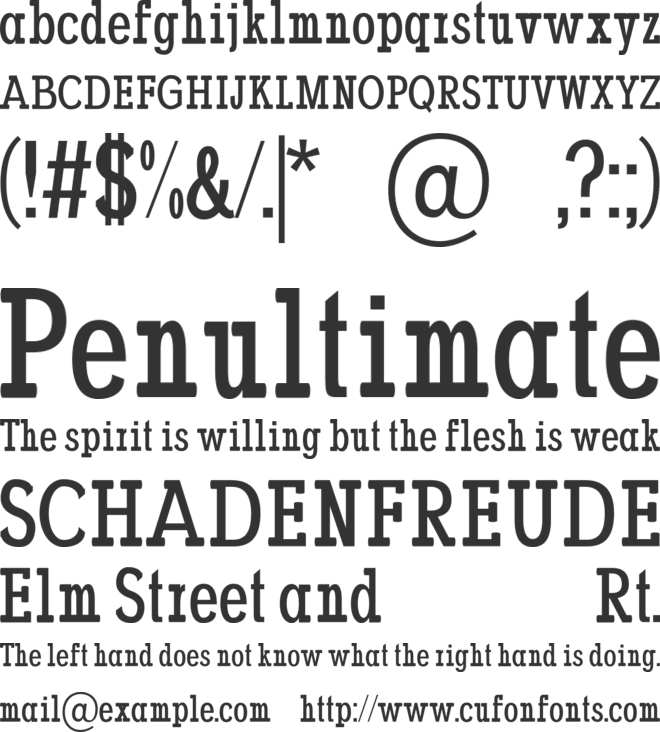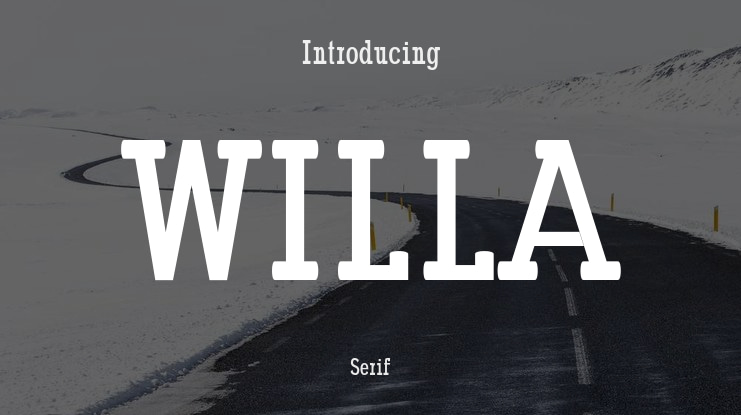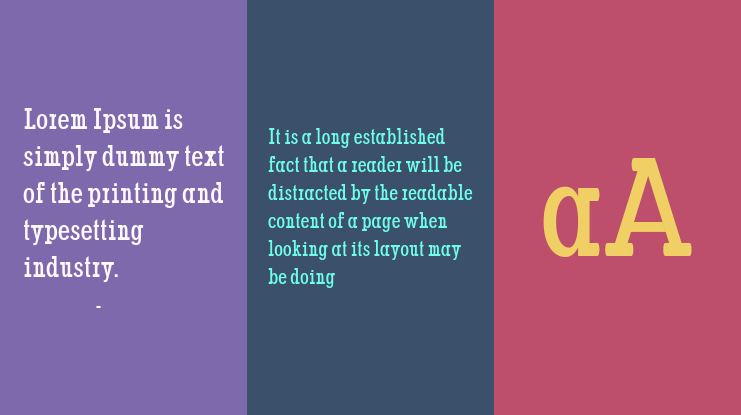
WILLA Font Family
Willa is an elegant rounded slab serif with multilingual support—perfect for poetic branding, editorial charm, and nature-inspired packaging.